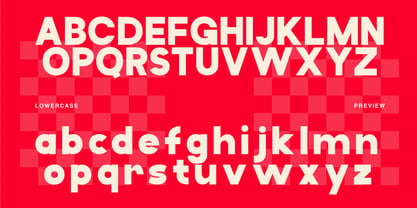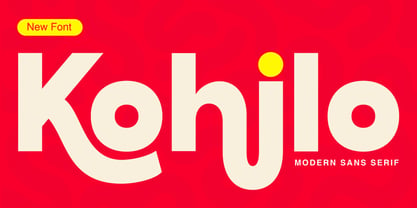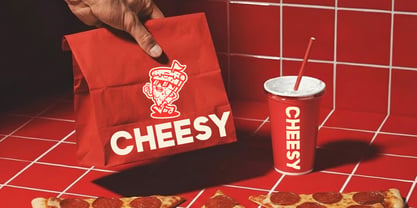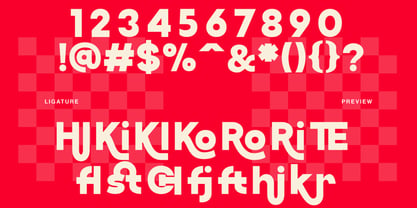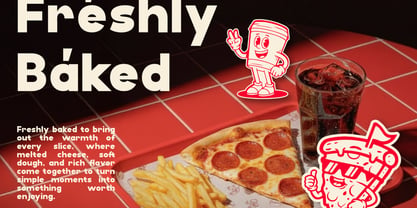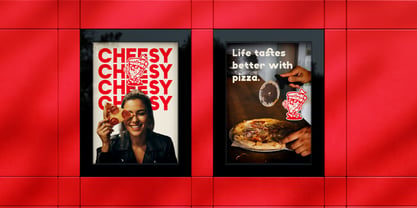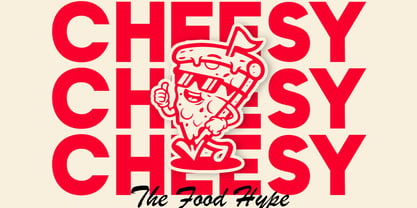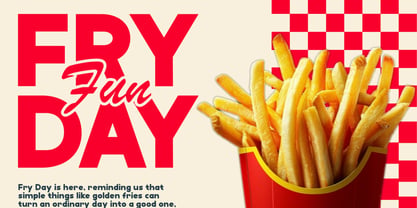
Kohilo
Die Schriftfamilie Kohilo wurde von Fajar Indra entworfen und von Rasio Studio veröffentlicht. Kohilo enthält 1 Stile. Mehr über diese Familie
Kohilo is a bold and lively modern sans serif typeface designed to make your message stand out with clarity and character. Its geometric shapes are softened by subtle curves, delivering a clean yet approachable look. Kohilo supports uppercase, lowercase, numbers, and punctuation making it ideal for logos, branding, advertising, packaging, and social media content. Kohilo is relevant for modern creatives looking for a bold yet friendly sans serif to enhance visual impact. Its clean curves and legibility make it highly adaptable for digital and print design from tech company branding and packaging for food & beverages, to trendy apparel tags and promotional posters.